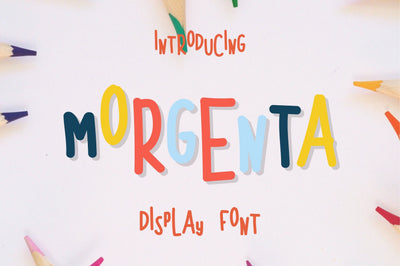
Morgenta Display Font
The Morgenta is a sweet and simple hand-drawn font. Its bold and curvy characters can add a bunch of personality to any project.Morgenta can be used for logos, on items for purchase with unlimited sales, and can be turned into a web font.
Fana Studio